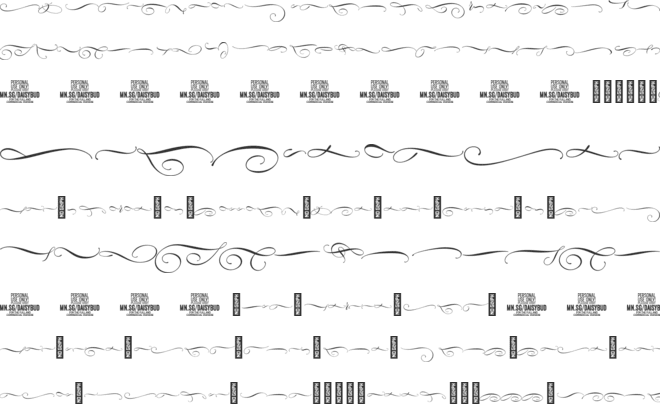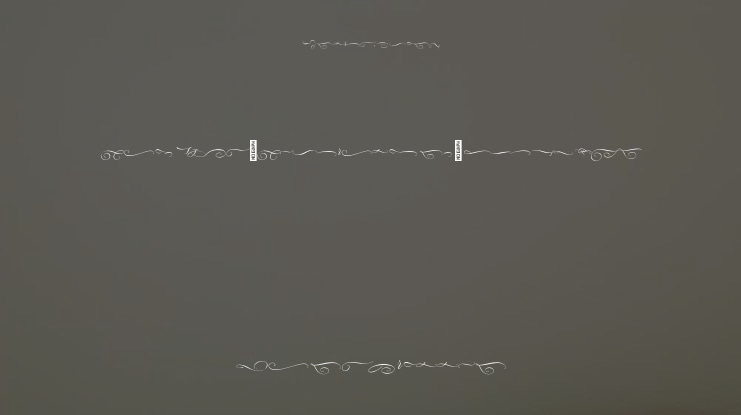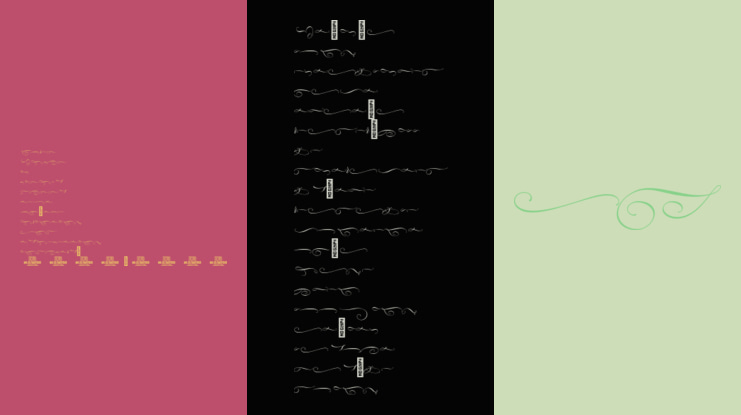
Daisybud Decorations PERSONAL Font Family
NOTE: This font is for PERSONAL USE ONLY!To purchase a commercial license, visit:https://www.mansgreback.com/product/daisybud-scriptDaisybud Script is a modern interpretation of an elegant and flourishing typeface. The font has an fine, airy feel and with long, flowy connections, created for delicate headlines, a intricate logotypes or a custom invitation card for a beautiful event. There is a calm and soft vibe to the swirly lines, adding to the sophistication.For questions, please visit www.mn.sg/faq